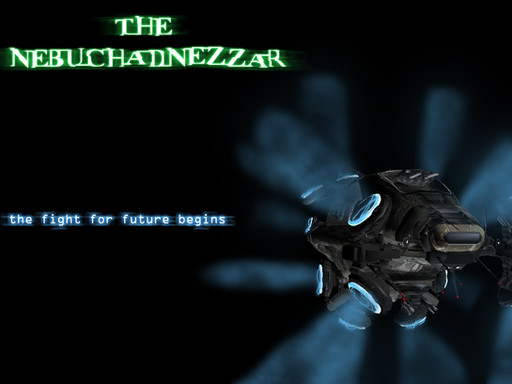
minimal improvements so far, version 2 with more authentic symbols coming soon. comments are welcomep.s. reloaded rulez!
Do you have the word font? Are you the one who did the font for the matrix? or did you copy it?
Matrix is just backwards Katakana and 1 kanji. MY LIFE IS A LIE.
Awesome font.
it doesn`t stand anything here right? or .. ? XD now, iΒ΄m not the best in japanese but the katakana doesnΒ΄t make too much sense for me together xΒ΄) please correct me if iΒ΄m wrong XD
Thx, this is the best matrix font on the internet so far.